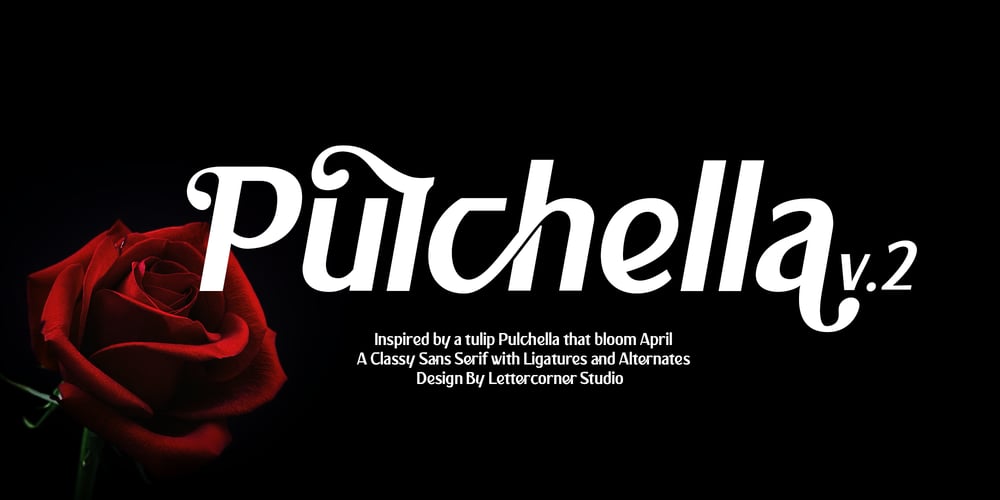
Pulchella V2
Pulchella V2 font
Pulchella V2 Font Family was designed by Muhammad Afif Ersya and published by Mevstory Studio. Pulchella V2 contains 2 styles and family package options. We are introducing an advanced version of the Pulchella font released and received great exposure from users and worldwide font enthusiasts. The massive development puts forward experimentation on the alternate letters. We redesign each shape to make it more functional and comfortable when text size escalation occurs. In addition to rejuvenating the letterform, we also apply an oblique style to provide diverse style choices.